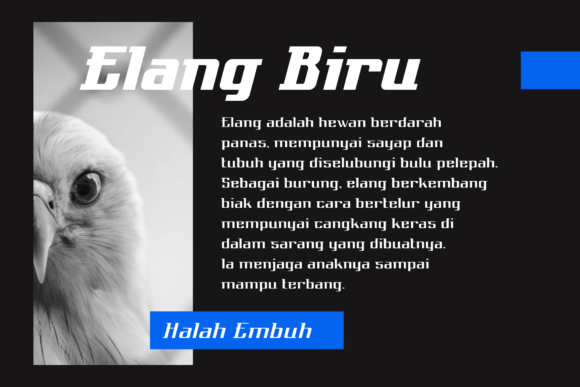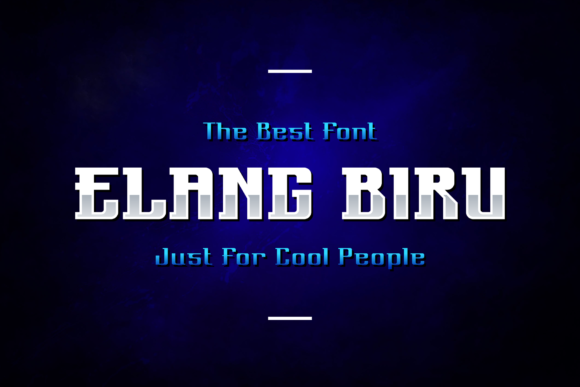
Discover the Stunning Elang Biru Font: Elevate Your Designs with its Unique Style
Are you tired of using the same old fonts in your designs? Look no further! Elang Biru is a unique and interesting display font that is sure to capture your attention. With its incredibly stylish look, this font is incredibly versatile and can fit a wide pool of designs. In this article, we’ll dive into the world of Elang Biru and explore its features, benefits, and uses.
What is Elang Biru Font?
Elang Biru is a display font that boasts a distinctive and eye-catching style. Its unique design makes it perfect for creating spectacular designs that stand out from the crowd. Whether you’re a designer, craftsperson, or simply a DIY enthusiast, Elang Biru is an excellent choice for anyone looking to add a touch of elegance and sophistication to their work.
Key Features of Elang Biru Font
- Unique and Stylish Design: Elang Biru’s design is unlike any other font out there. Its stylish look is sure to capture your attention and inspire your creativity.
- Incredibly Versatile: This font can fit a wide range of designs, from modern and sleek to traditional and elegant.
- Display Font: Elang Biru is a display font, making it perfect for headlines, titles, and other prominent text elements.
- Easily Readable: Despite its unique design, Elang Biru is still easily readable, making it perfect for body text and other written content.
Benefits of Using Elang Biru Font
So, why should you choose Elang Biru for your designs? Here are just a few benefits of using this amazing font:
- Adds Visual Interest: Elang Biru’s unique design adds visual interest to your designs, making them more engaging and attention-grabbing.
- Enhances Creativity: With Elang Biru, you can create stunning designs that showcase your creativity and style.
- Perfect for Branding: This font is perfect for creating brand identities, logos, and marketing materials that stand out from the competition.
Uses of Elang Biru Font
So, what can you use Elang Biru for? The possibilities are endless! Here are a few ideas to get you started:
- Logos and Branding: Use Elang Biru to create stunning logos and brand identities that showcase your unique style.
- Posters and Flyers: Add a touch of elegance to your posters and flyers with Elang Biru’s stylish design.
- Social Media Graphics: Use Elang Biru to create eye-catching social media graphics that grab attention and drive engagement.
- Web Design: Add a touch of sophistication to your website with Elang Biru’s unique design.
In conclusion, Elang Biru is a unique and interesting display font that is sure to elevate your designs to the next level. With its incredibly stylish look and versatility, this font is perfect for designers, craftspersons, and DIY enthusiasts alike. Whether you’re looking to create stunning logos, posters, social media graphics, or web designs, Elang Biru is an excellent choice. So why wait? Fall in love with Elang Biru’s stylish design and use it to create spectacular designs that showcase your creativity and style!